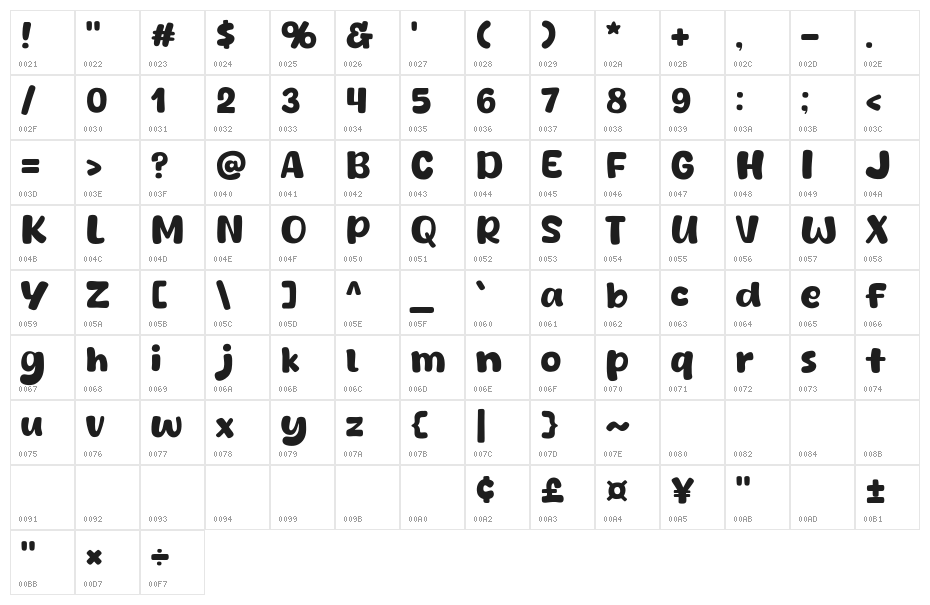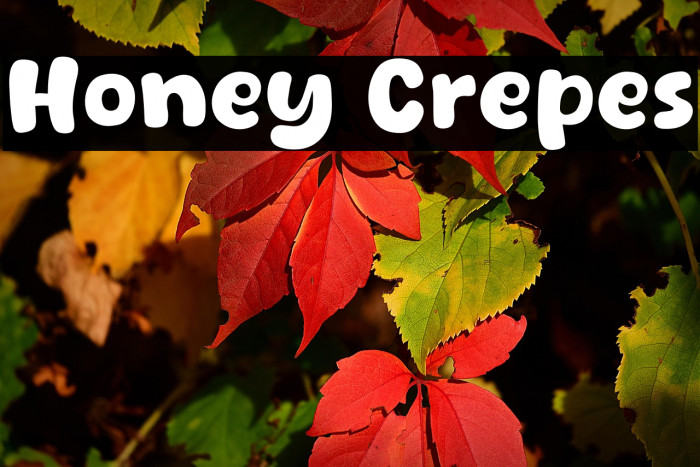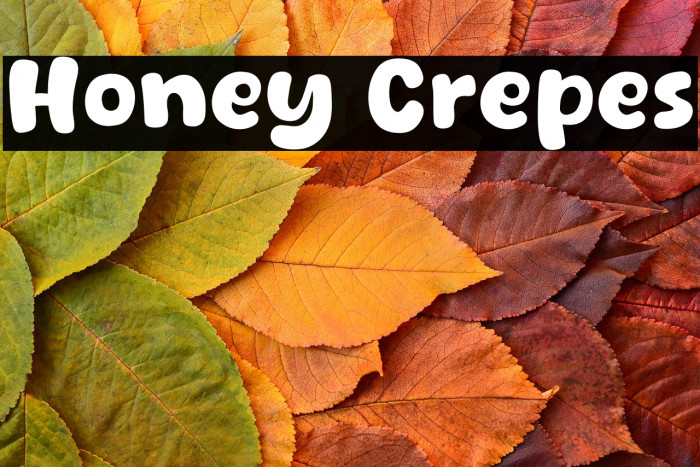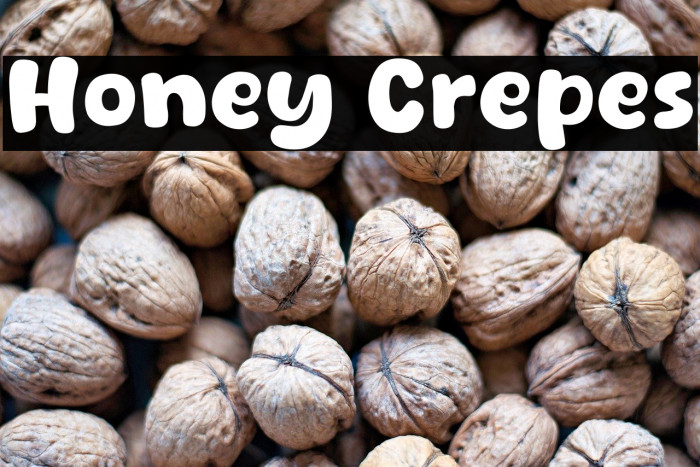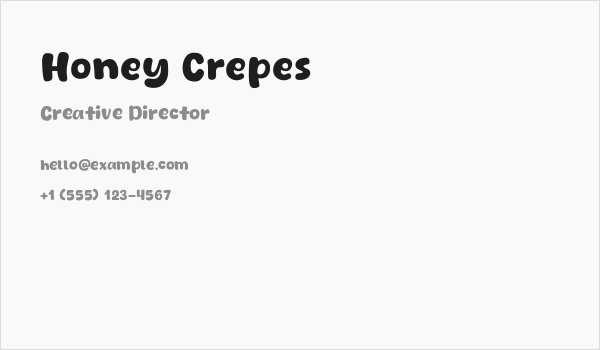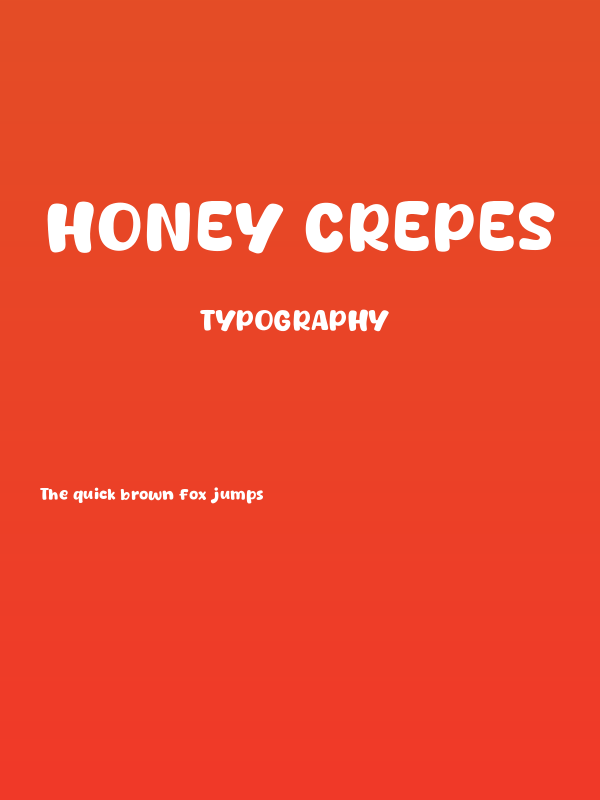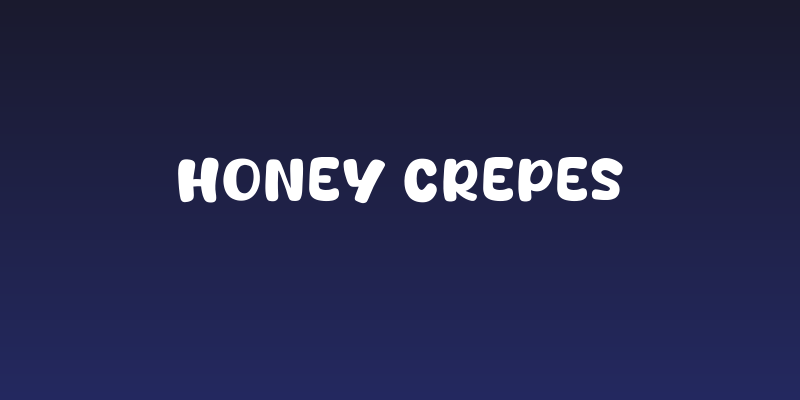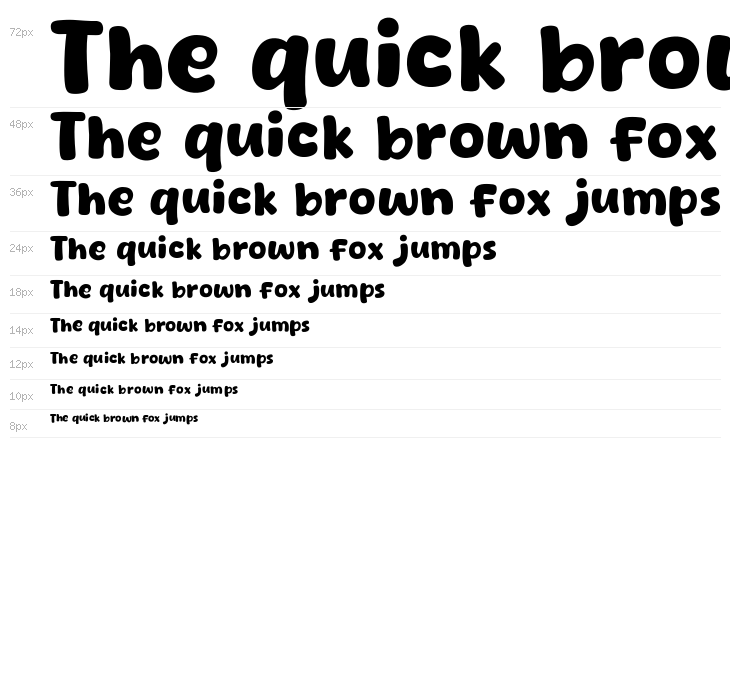
Honey Crepes Font
Honey Crepes Description
This playful and bold font features rounded, bubbly characters that exude a sense of fun and whimsy. The letters are thick and uniform, with a consistent stroke width that gives a cohesive appearance. The rounded edges and lack of sharp angles contribute to its friendly and approachable style. The font maintains a balanced and even spacing between characters, ensuring readability while preserving its playful aesthetic. Its bold presence makes it suitable for attention-grabbing designs, while the smooth curves add a touch of softness and warmth.
| Proposed Projects | Ideal for children's books, playful branding, party invitations, and casual social media graphics. |